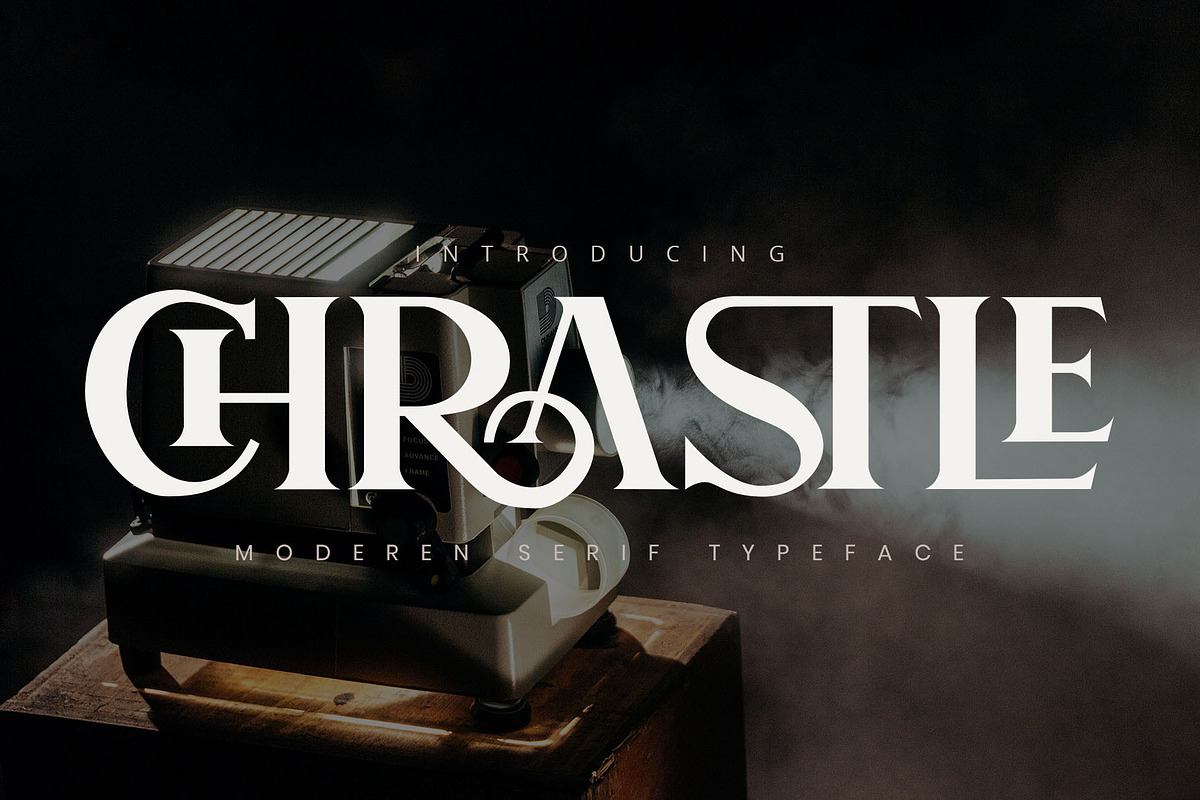
The Chrastle Modern Serif Typeface Free Download is a sophisticated and stylish font designed to add elegance and clarity to your designs. With its sleek, modern serif design, this typeface is perfect for creating logos, editorial layouts, websites, and branding materials that require a refined and professional appearance. The clean lines and balanced structure of Chrastle ensure readability while providing a bold and contemporary look. Whether you're designing for high-end brands, luxury products, or editorial projects, this font will elevate your typography with its modern, timeless appeal. Please note, for commercial use, a license purchase is required. However, you can easily download the Chrastle Modern Serif Typeface Free Download for free for personal use and experiment with its style. Download the Chrastle Modern Serif Typeface Free Download today and enhance your designs with a fresh, modern serif touch.